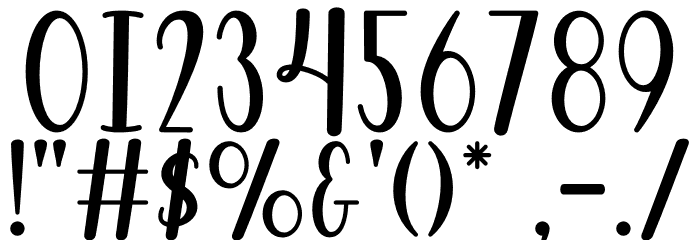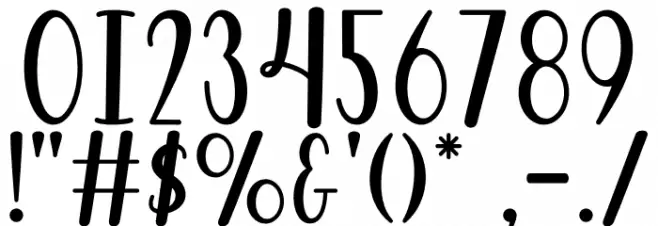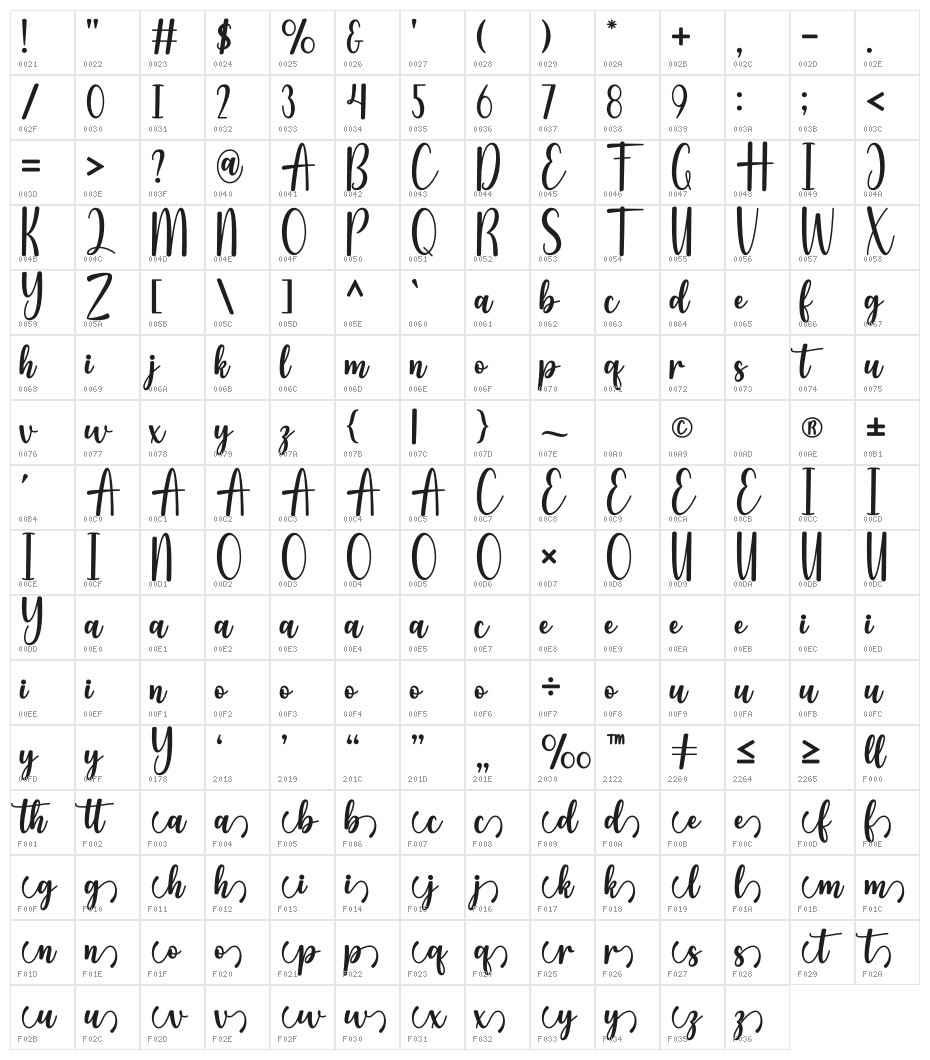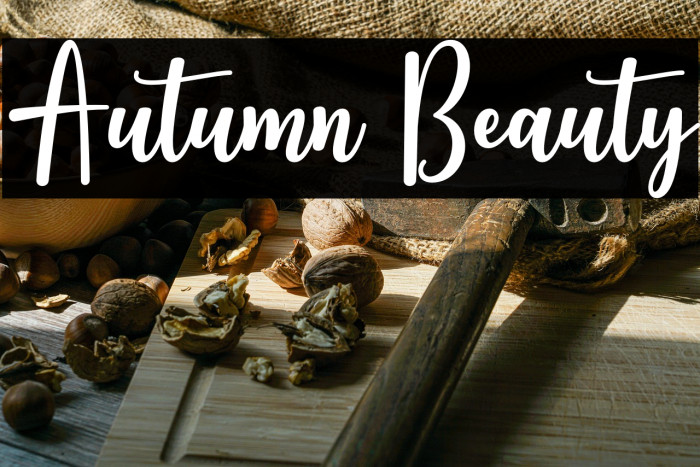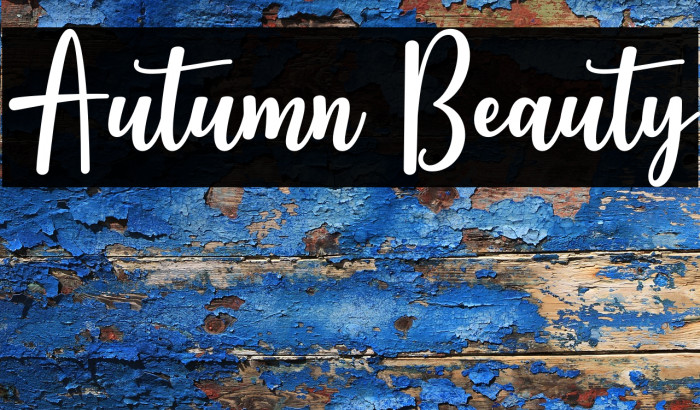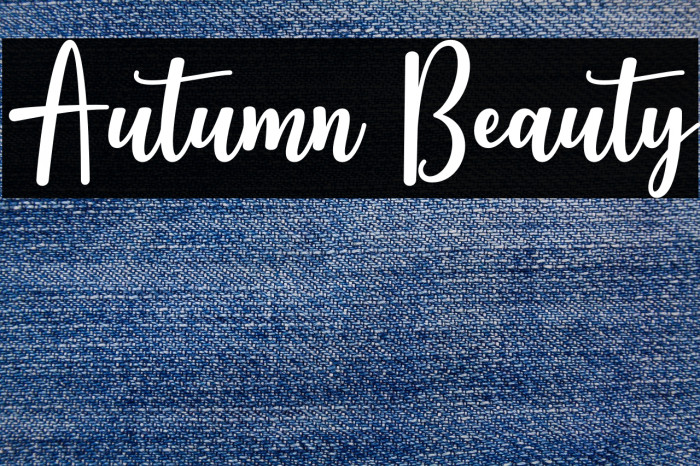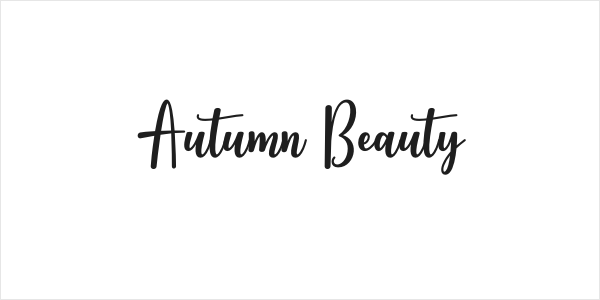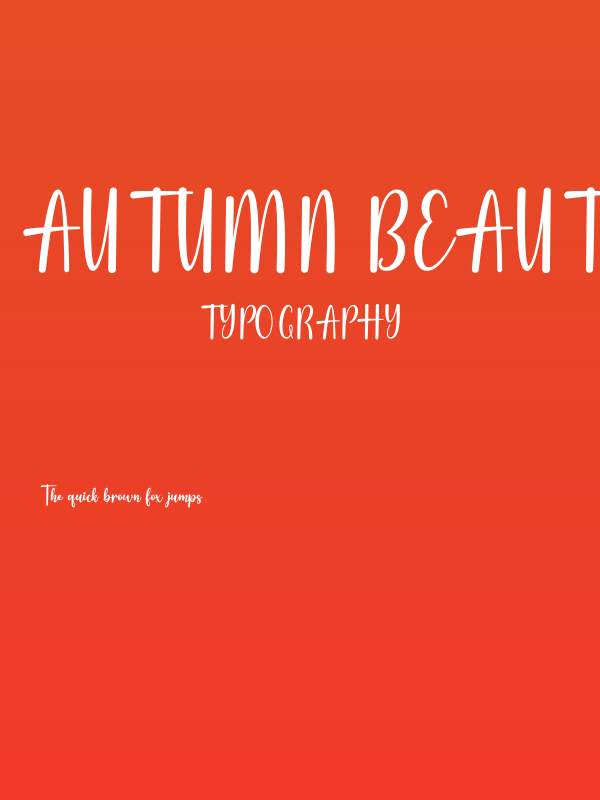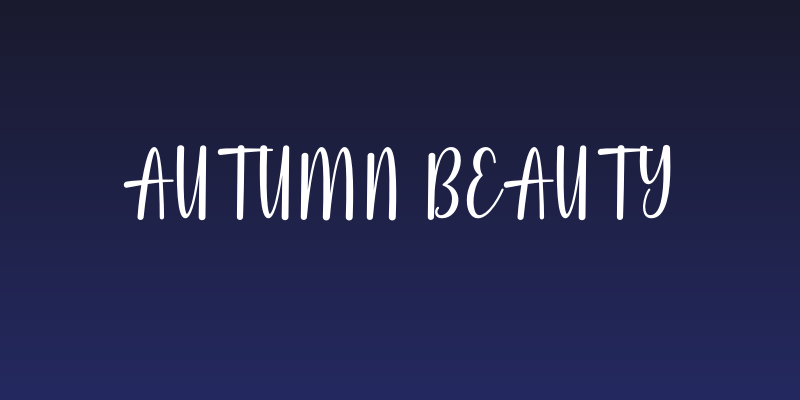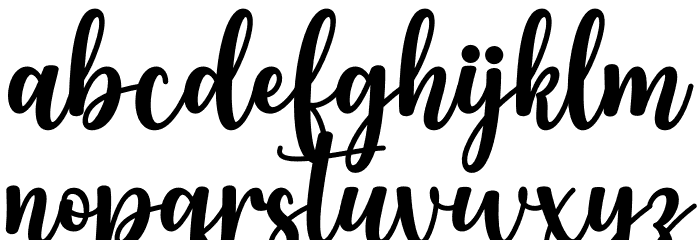
Autumn Beauty Font
Autumn Beauty Description
This font features a playful and whimsical script style with a handwritten feel. The uppercase letters are tall and narrow, with a slight slant and playful loops, giving them a lively appearance. The lowercase letters are more rounded and connected, creating a smooth and flowing script. The numbers maintain the same playful style, with varying stroke widths that add to the font's dynamic look. Special characters are creatively designed to match the overall aesthetic, making this font suitable for creative and informal projects.
| Proposed Projects | Ideal for greeting cards, invitations, branding, and social media graphics. |